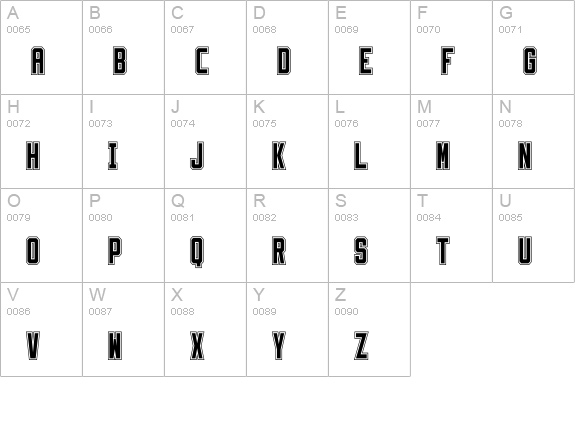
Slimfit College is a modern and stylish font that exudes an air of elegance and sophistication. Its sleek and slender design makes it perfect for a variety of design projects, including logos, branding, invitations, and more. This font features clean lines, sharp edges, and a contemporary feel that will instantly elevate any design. The tall and slim letterforms give it a unique and eye-catching look, making it stand out from the crowd. Slimfit College is not only visually appealing, but it is also incredibly versatile. It can be used for both formal and informal designs, making it suitable for a wide range of applications. Whether you're designing a professional website or creating a fun and playful poster, this font will surely impress. One of the best things about Slimfit College is that it is free! Yes, you read that right. This amazing font is freely available to download at FontsMarket.com. You can easily access it and start using it in your projects without any hassle. So, why wait? Download Slimfit College today and add a touch of elegance and modernity to your designs. Whether you're a professional designer or a casual enthusiast, this font is sure to become your go-to choice for all your typographic needs.